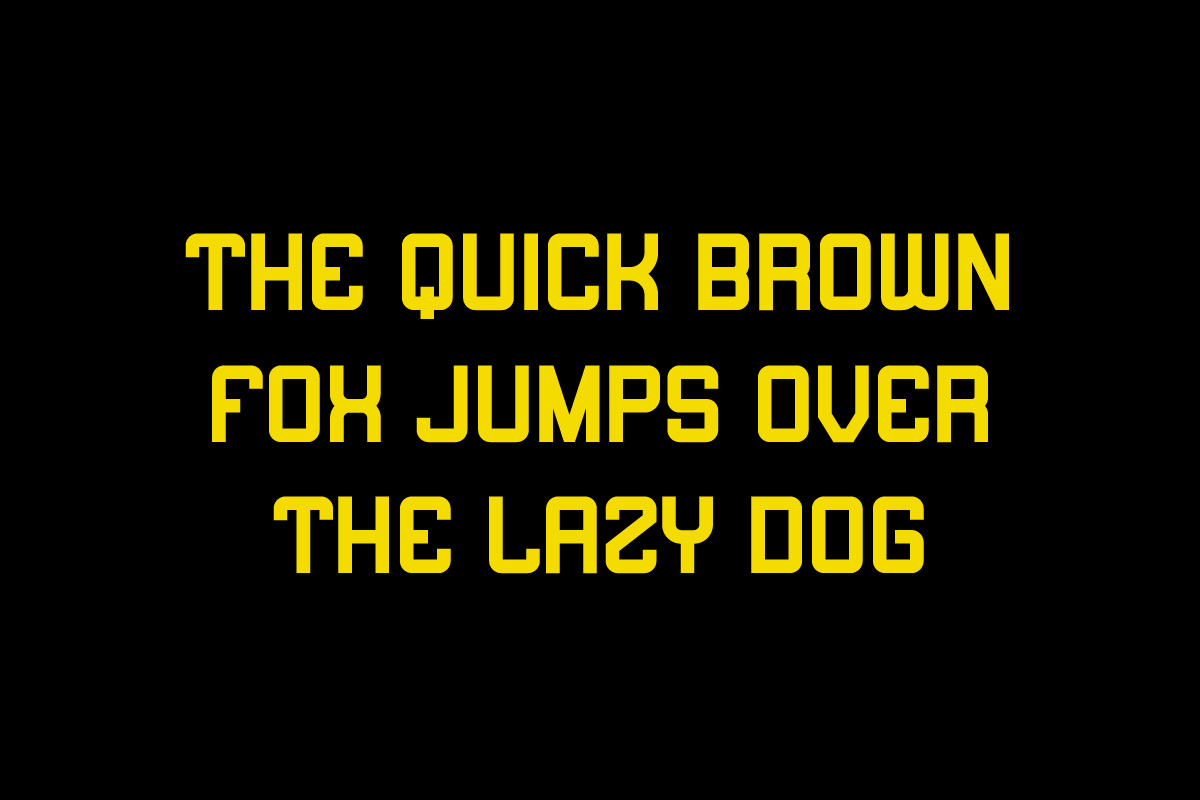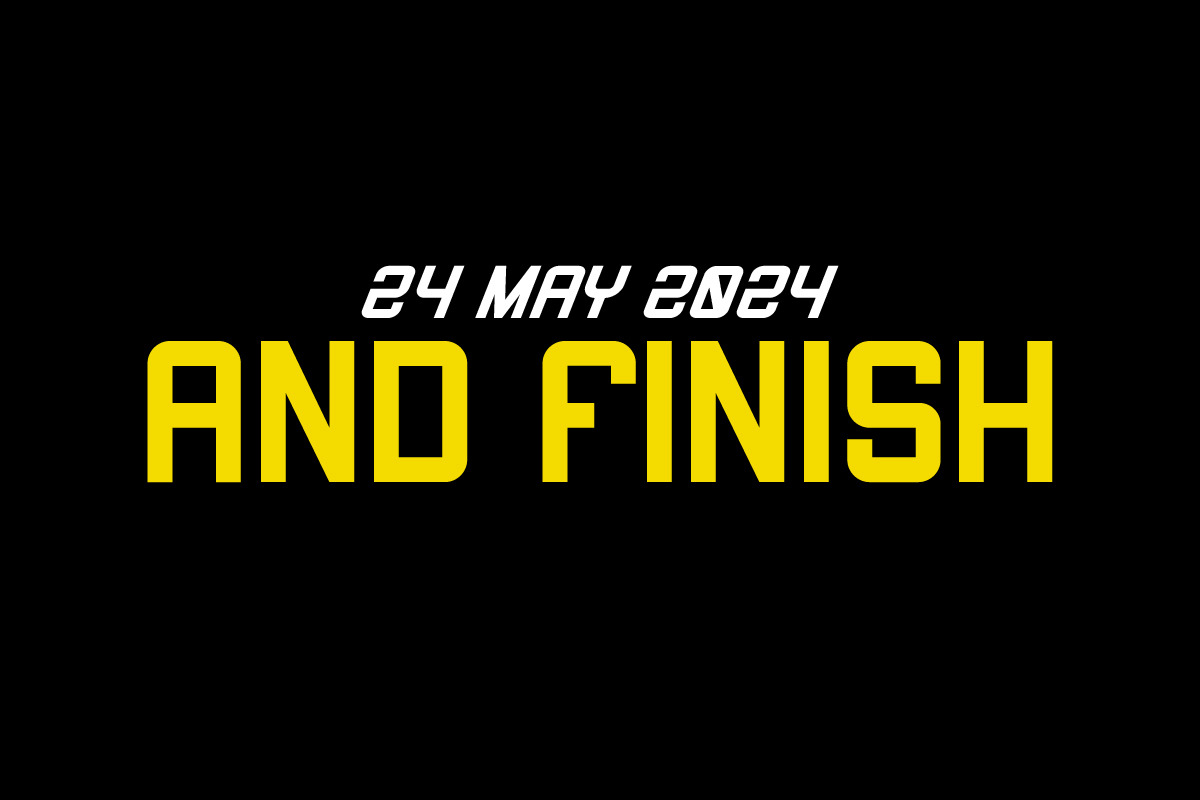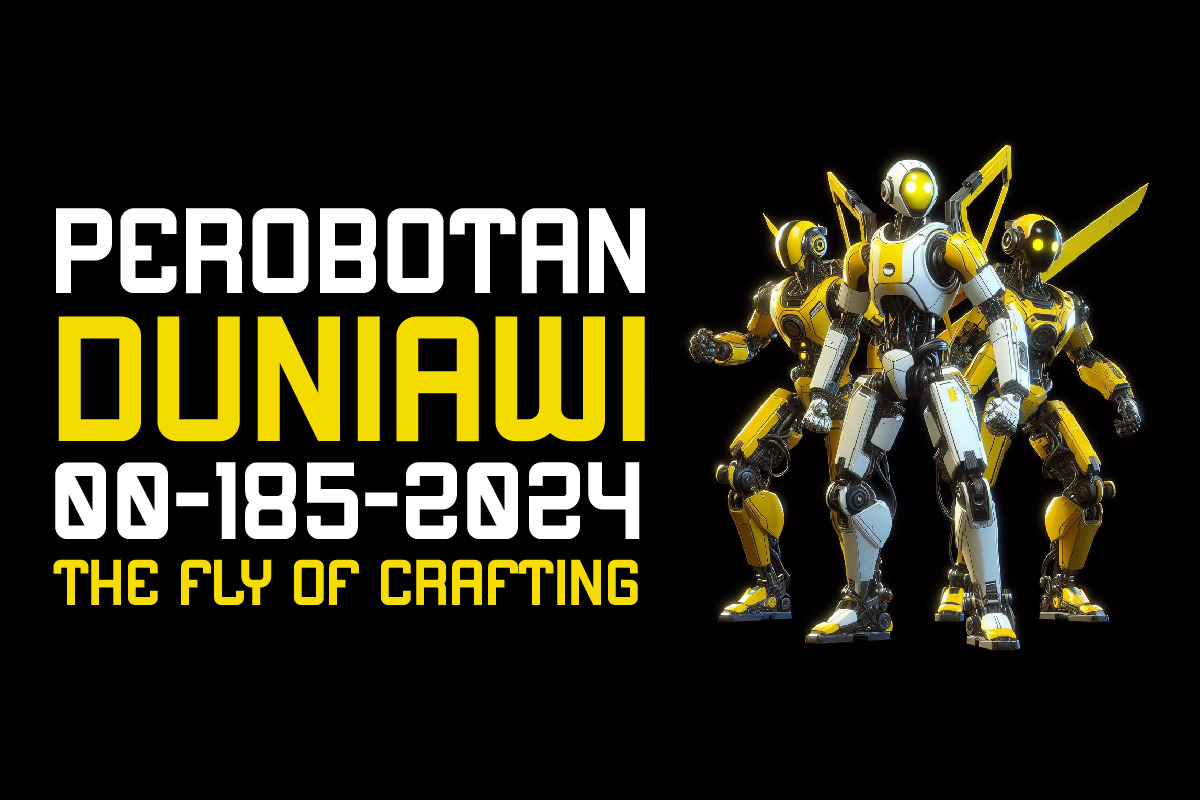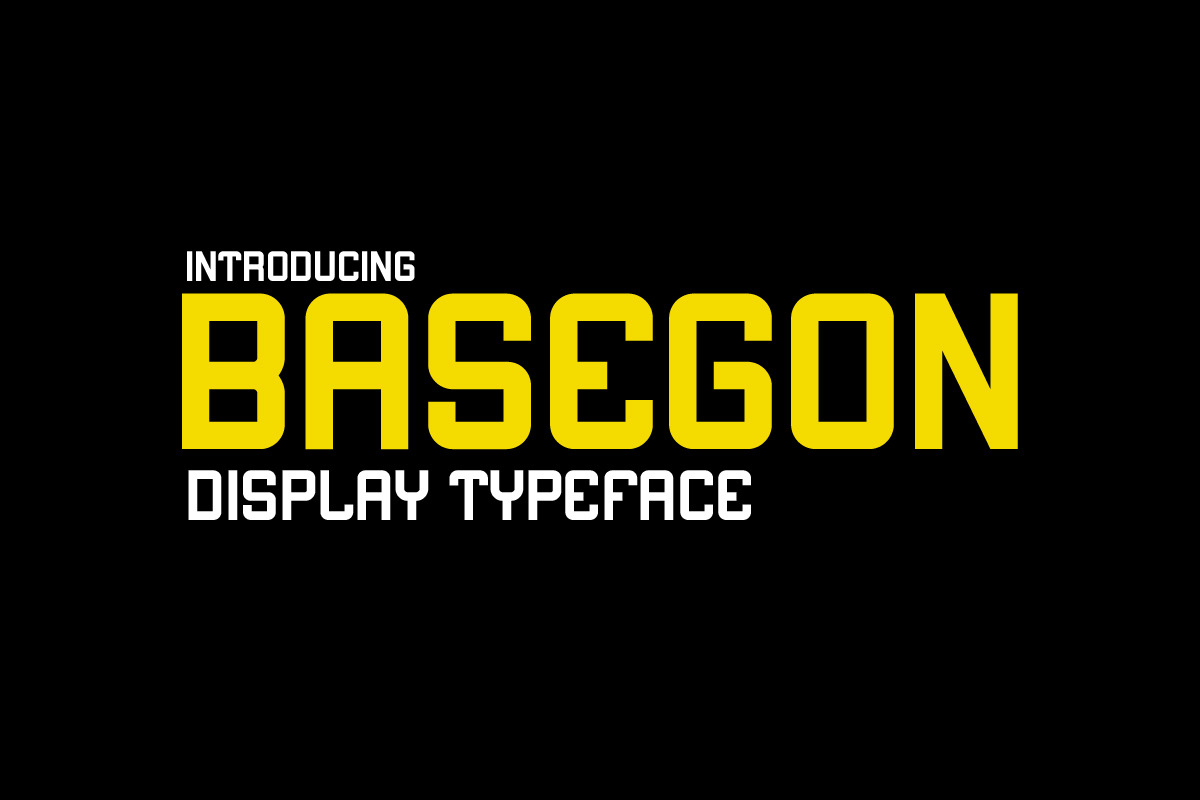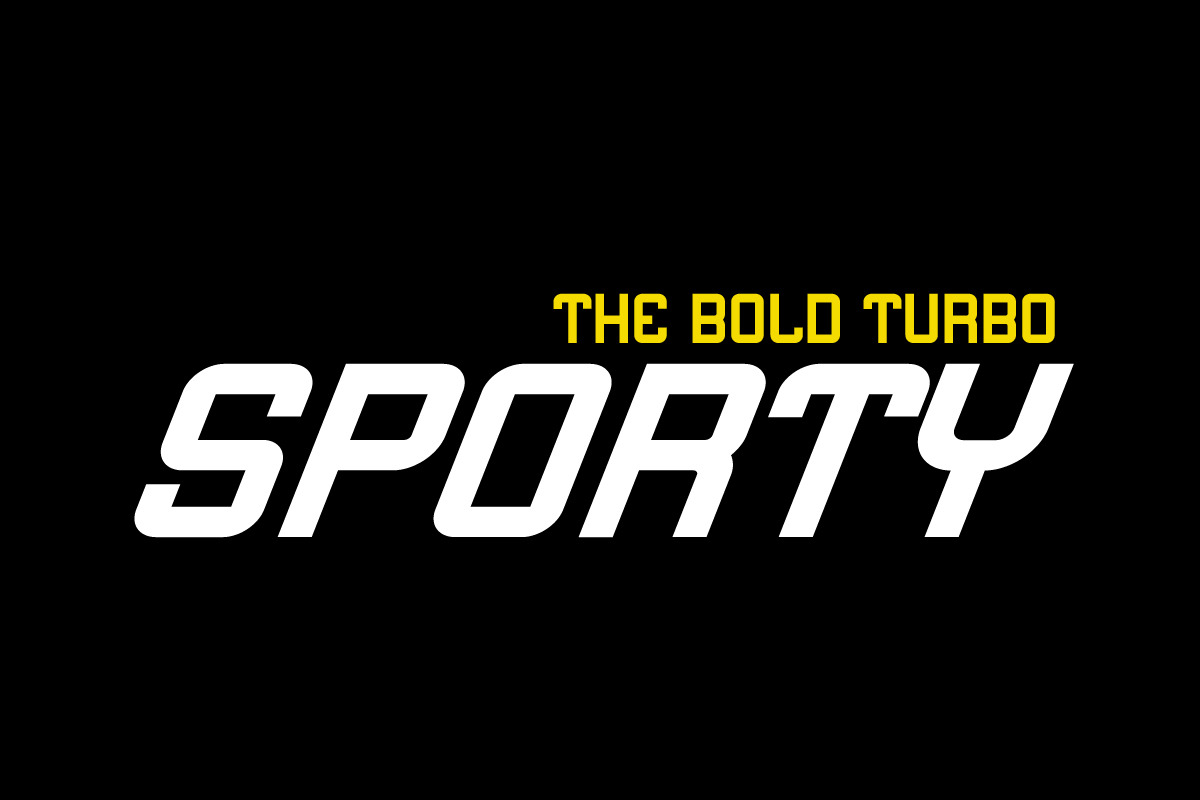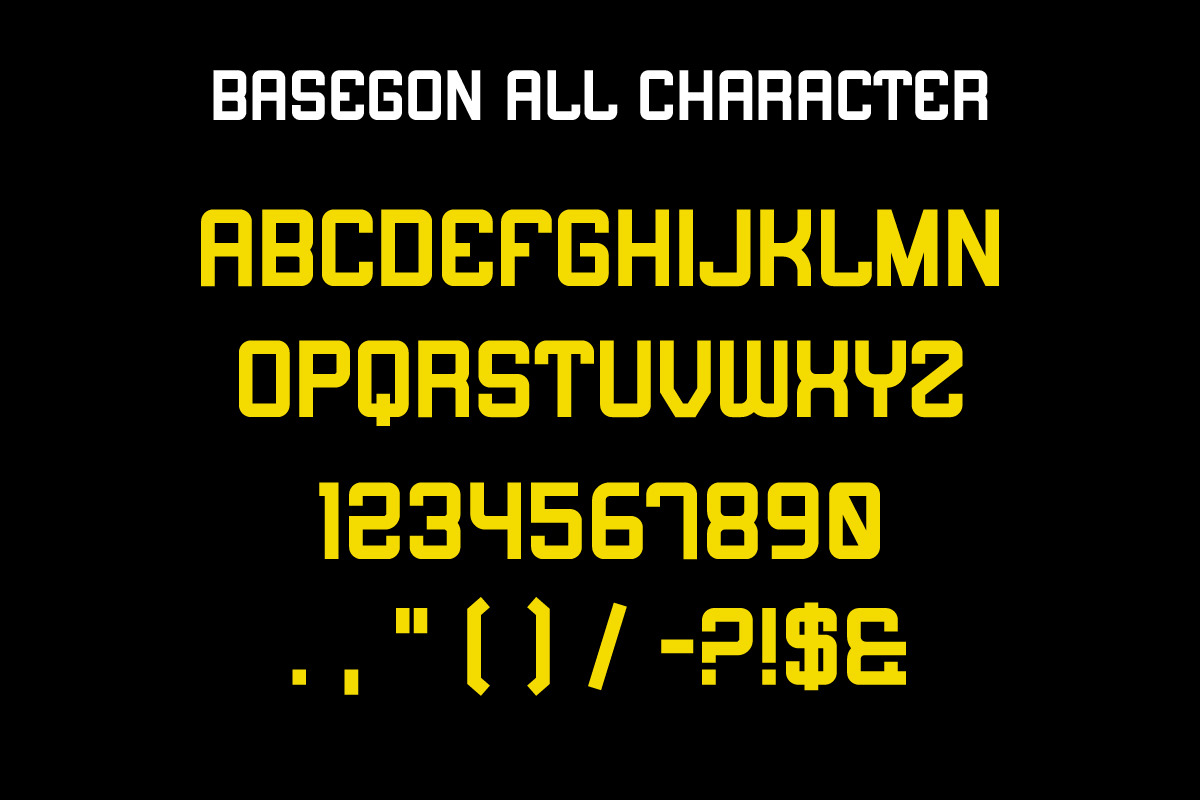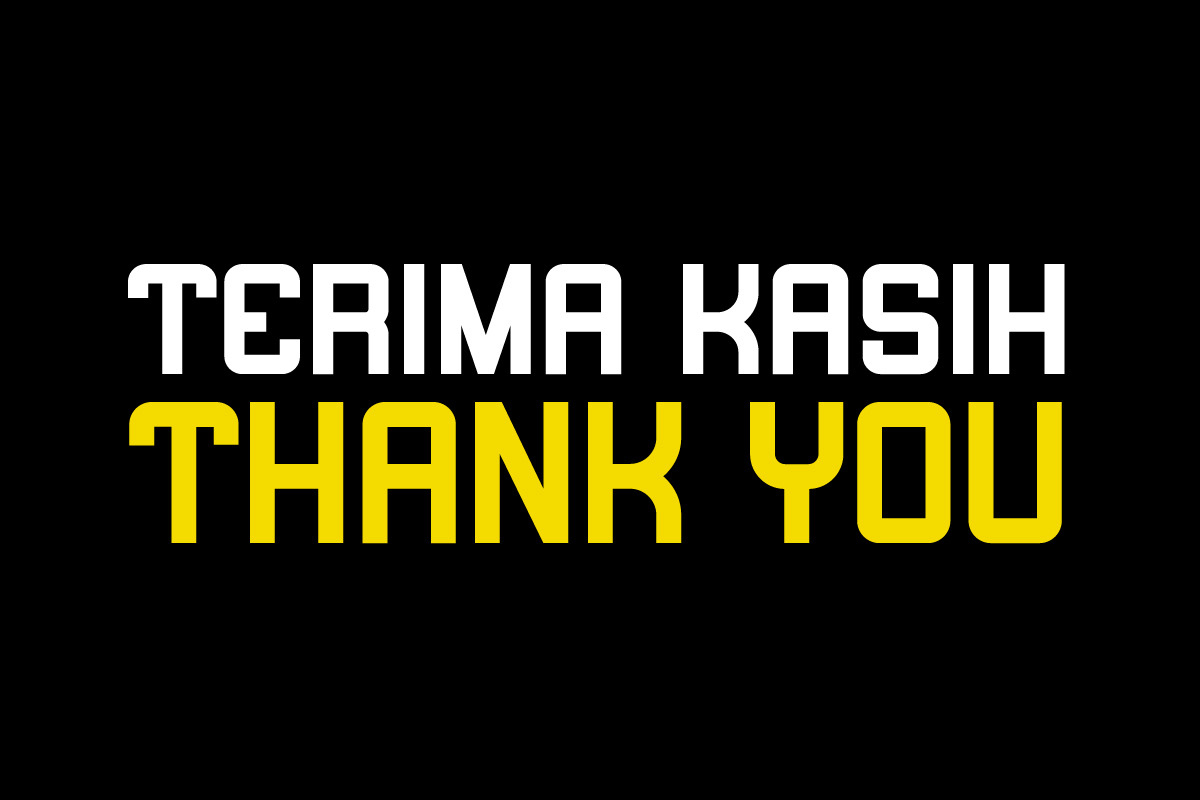
Basegon Sans Serif Display Font
Basegon Sans Serif Display Font is our new item suitable for your Posters.
Great for Logo, Poster, Sticker, Jerseys, Invitation Card, Brochure, etc.